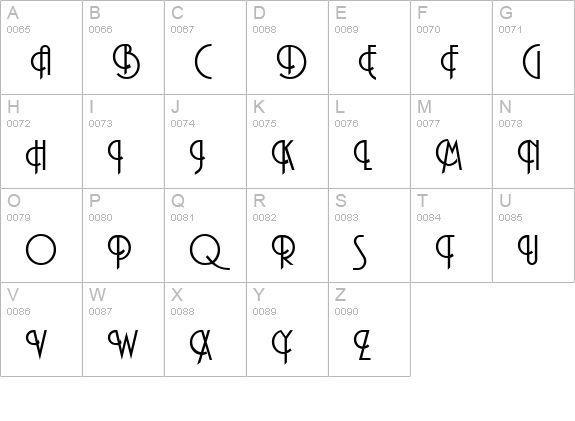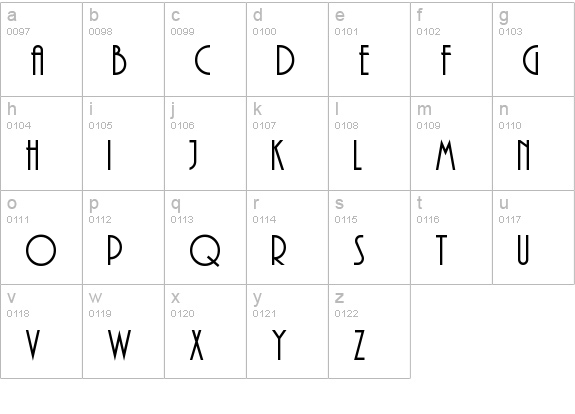
Promenade Regular Font Details
Promenade Regular is the standard, neutral variant in the Promenade typeface family \xE2\x80\x94 well suited to general body text, paragraphs, and standard typographic work.
Promenade Regular font is a sleek and modern typeface that exudes elegance and sophistication. With its clean lines and balanced letterforms, this font is perfect for a wide range of design projects, from branding to editorial design. The versatility of Promenade Regular makes it a go-to choice for designers looking to add a touch of refinement to their work. The best part? Promenade Regular is available for free download at FontsMarket.com. This means you can easily incorporate this stylish font into your projects without breaking the bank. Whether you're working on a logo, website, or print materials, Promenade Regular is sure to elevate your design and make a lasting impression. Download this font today and take your designs to the next level!